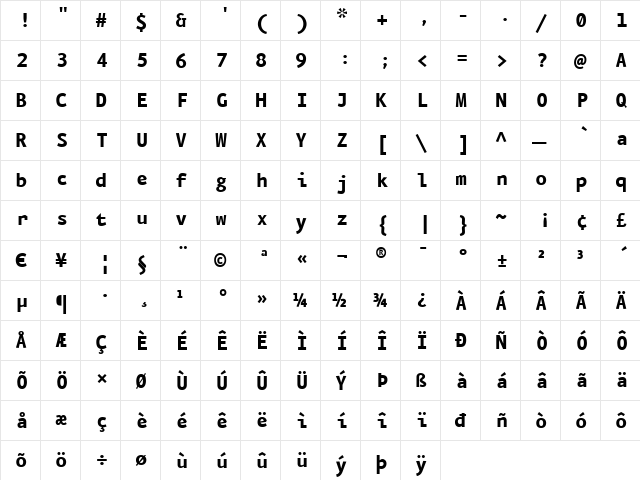
Eureka Mono Regular Font Preview
Eureka Mono Regular
Eureka Mono Regular Font Details
| Foundry | Peter Bilak, published by FontShop International for the FontFont library |
Design Context for Eureka Mono Typeface
Eureka Mono brings the precise, column-aligned rhythm of monospaced typography to designs that value technical clarity and systematic order.